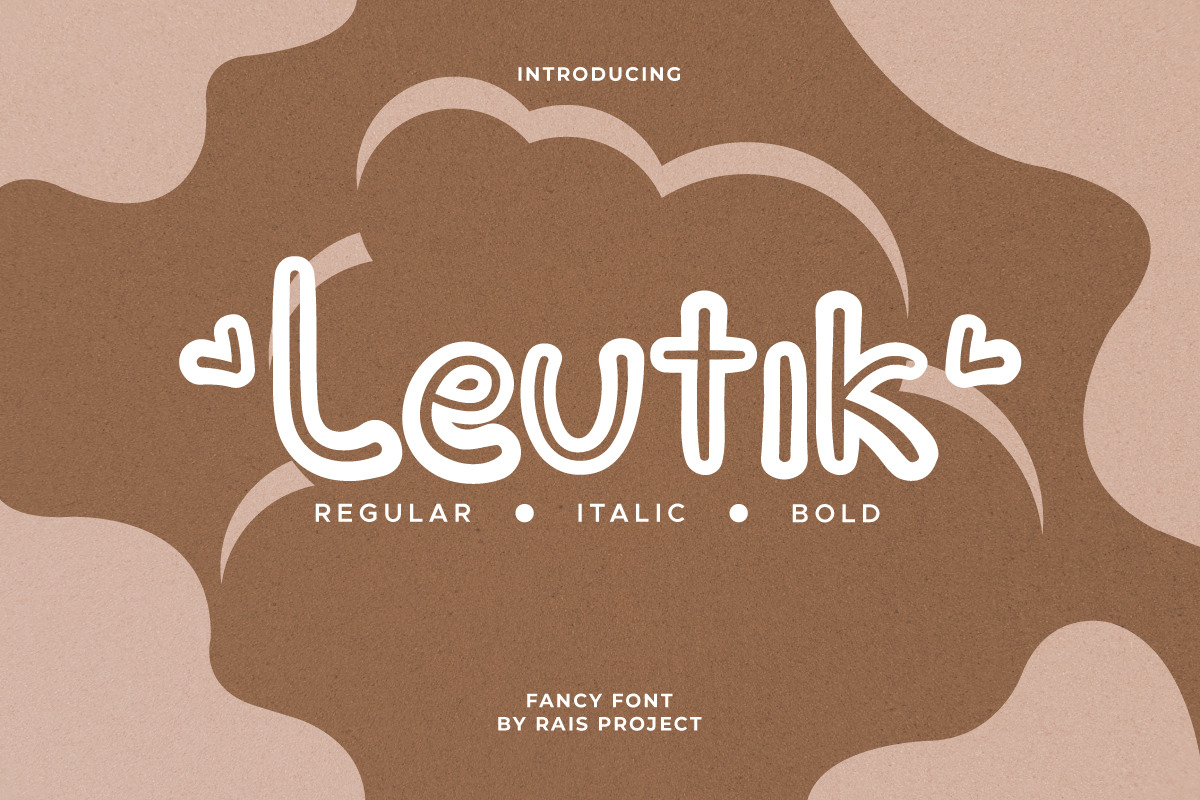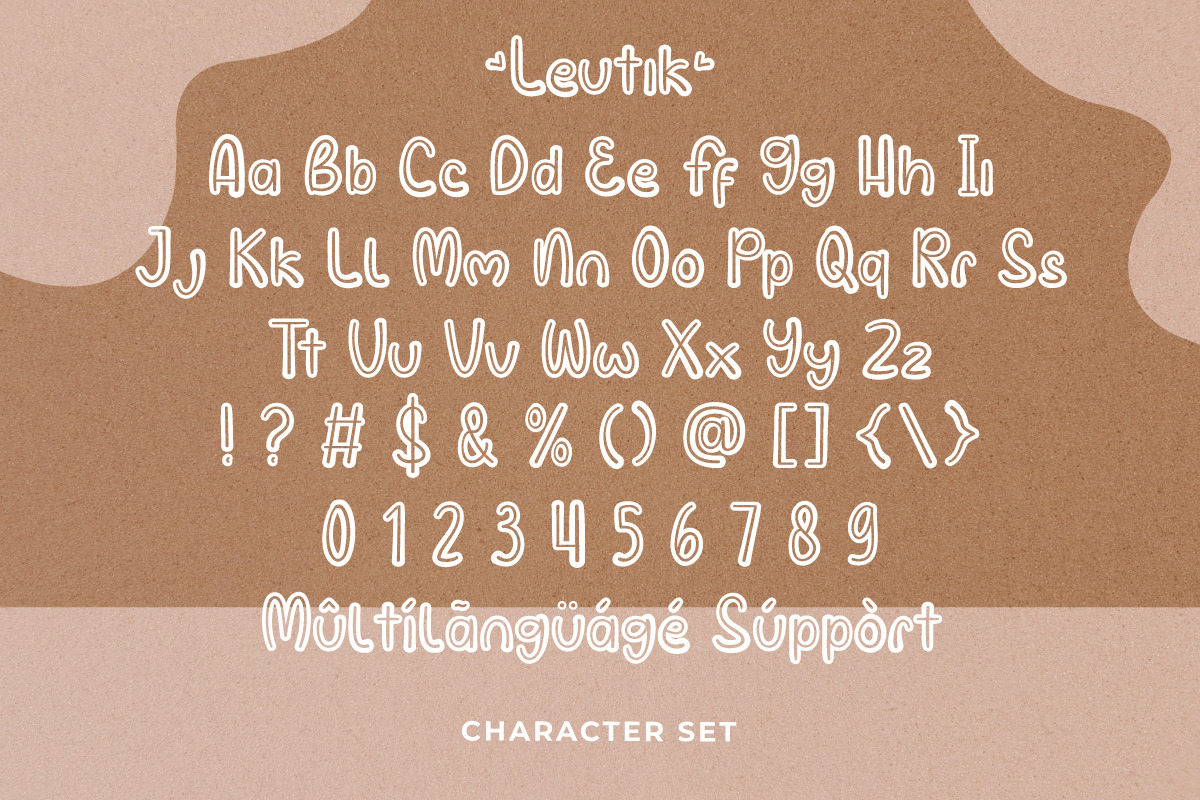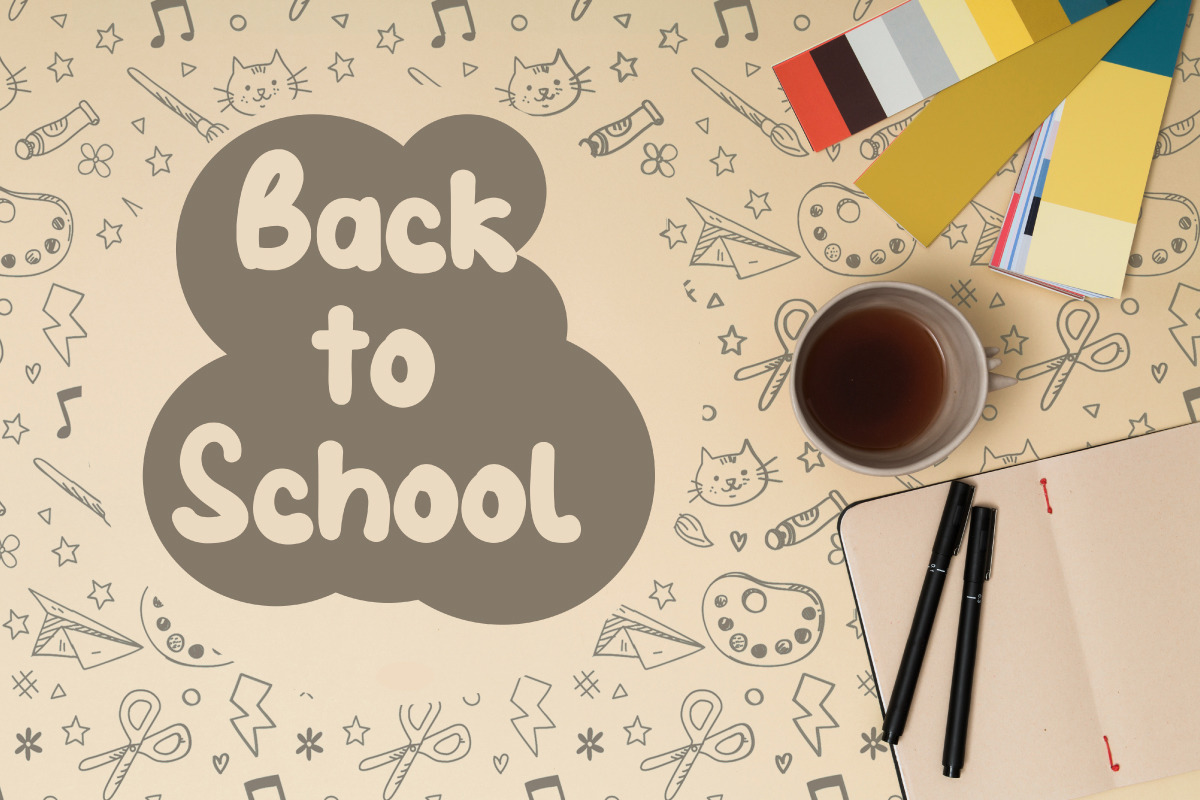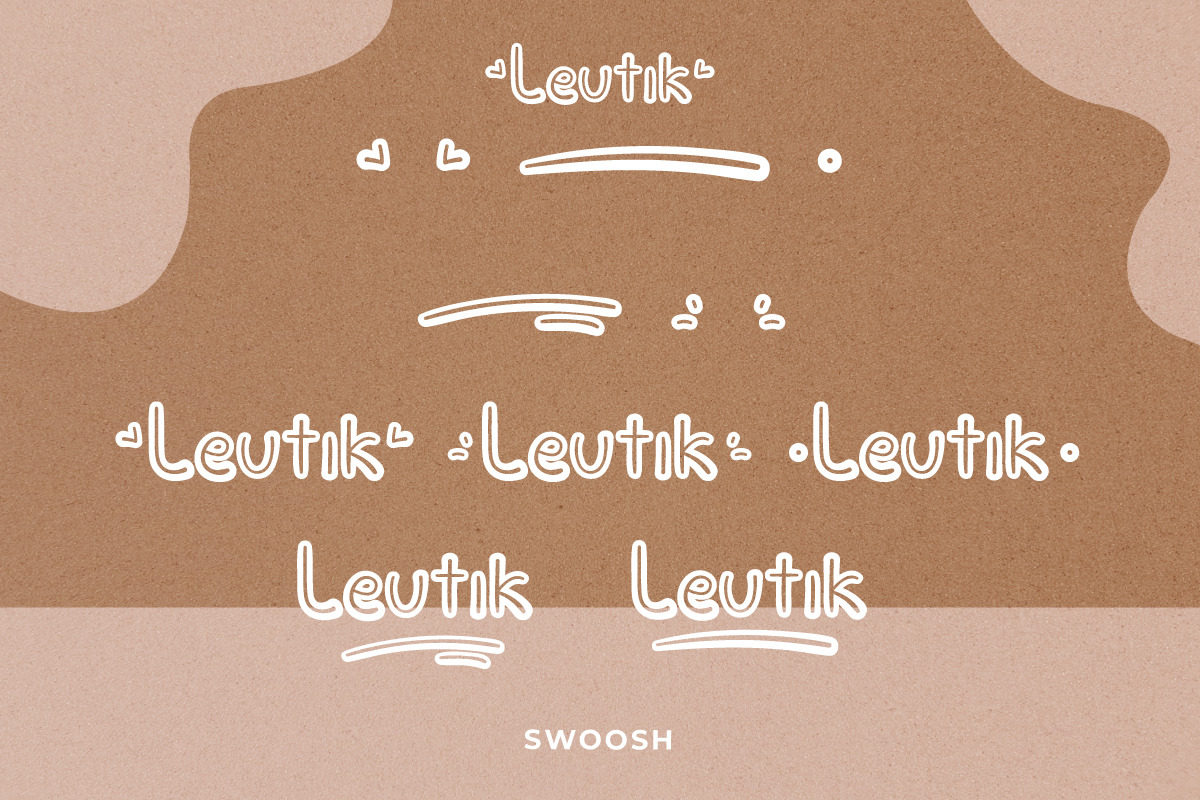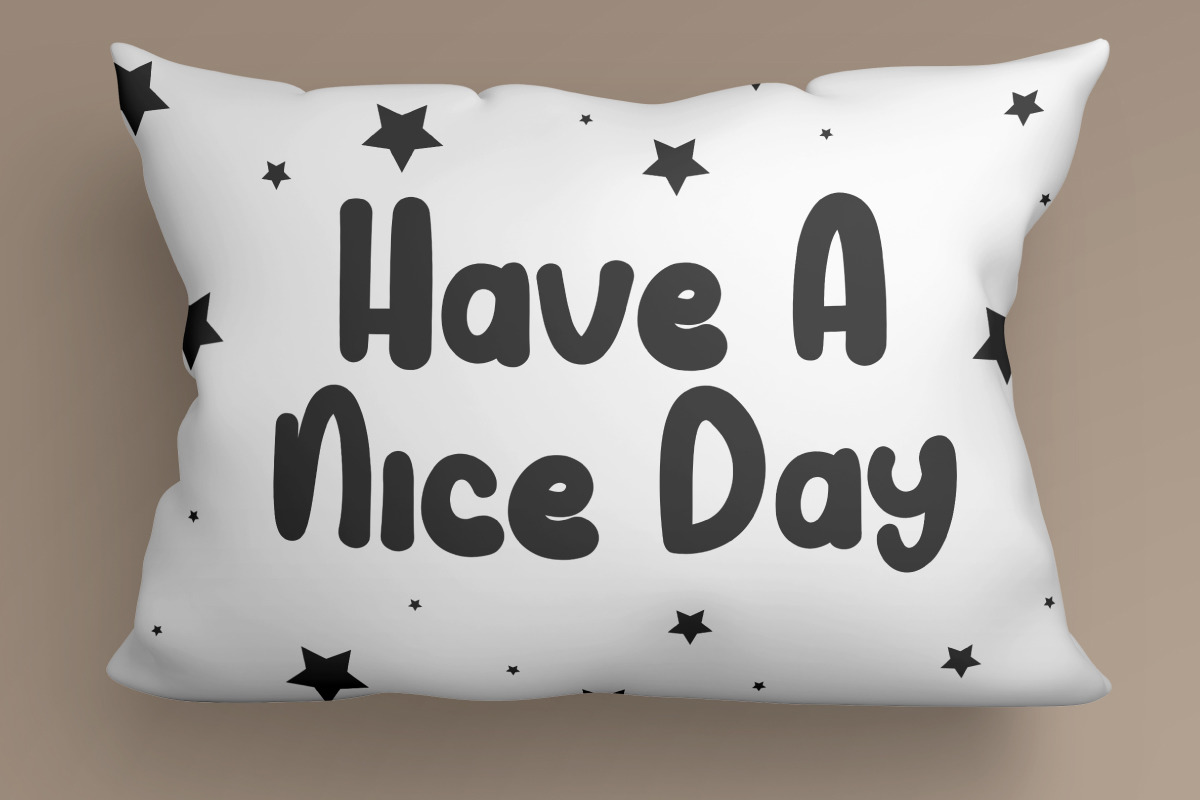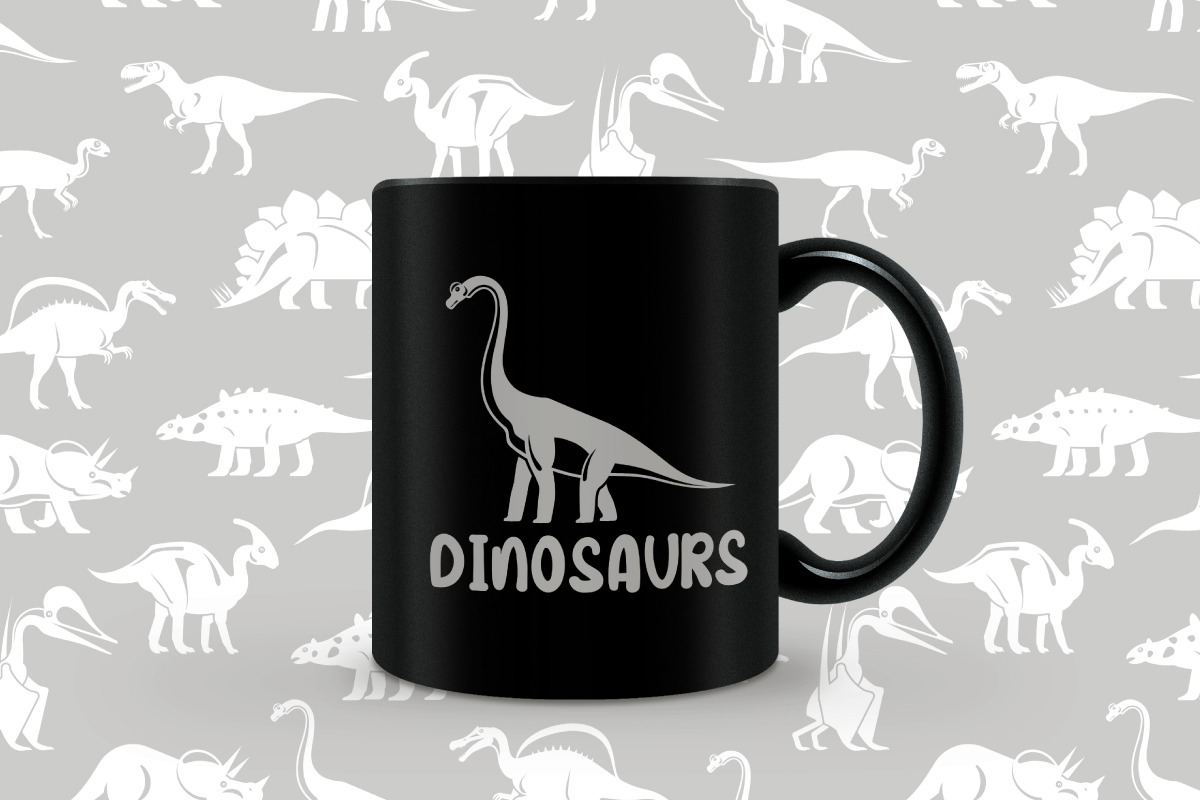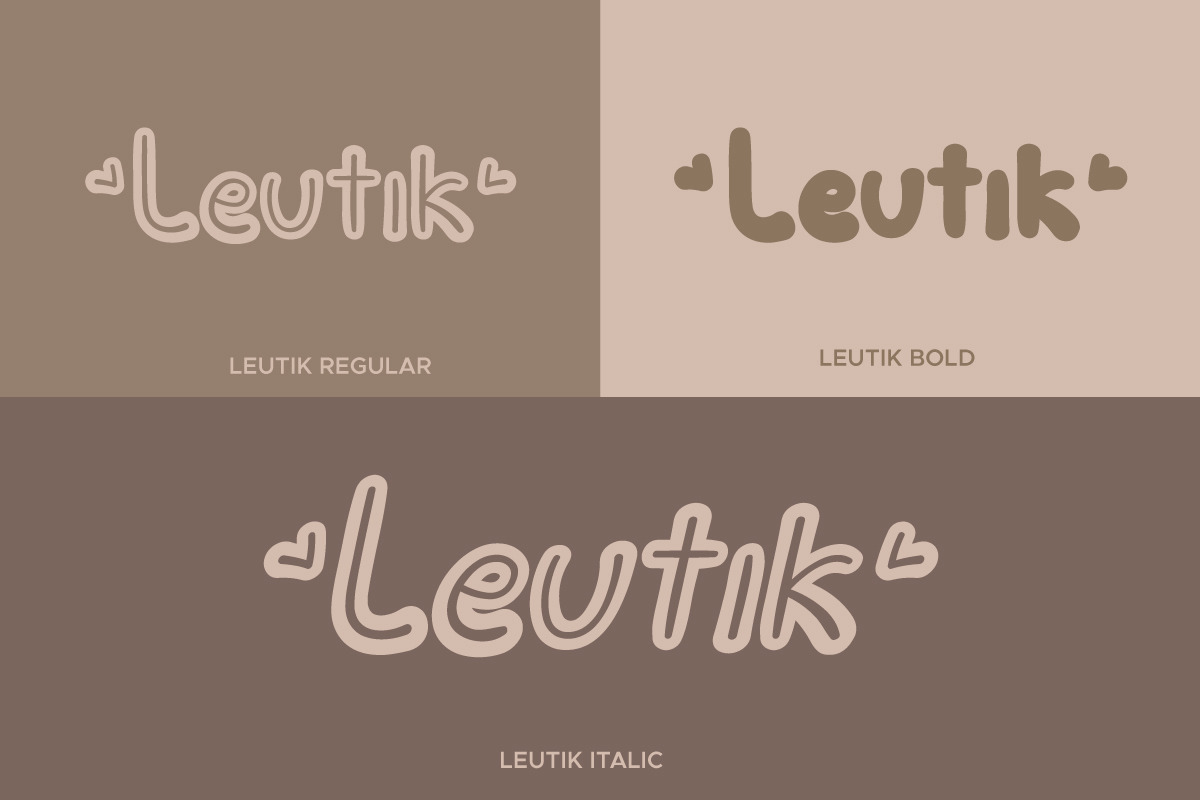
Leutik Decorative Font
Leutik Font is a cartoon or comic display decorative sans serif font family, designed by Rais Project. The industries for this font is Comic, Events, Games, Magazine, Music, Movies, Cafe, Restaurant etc